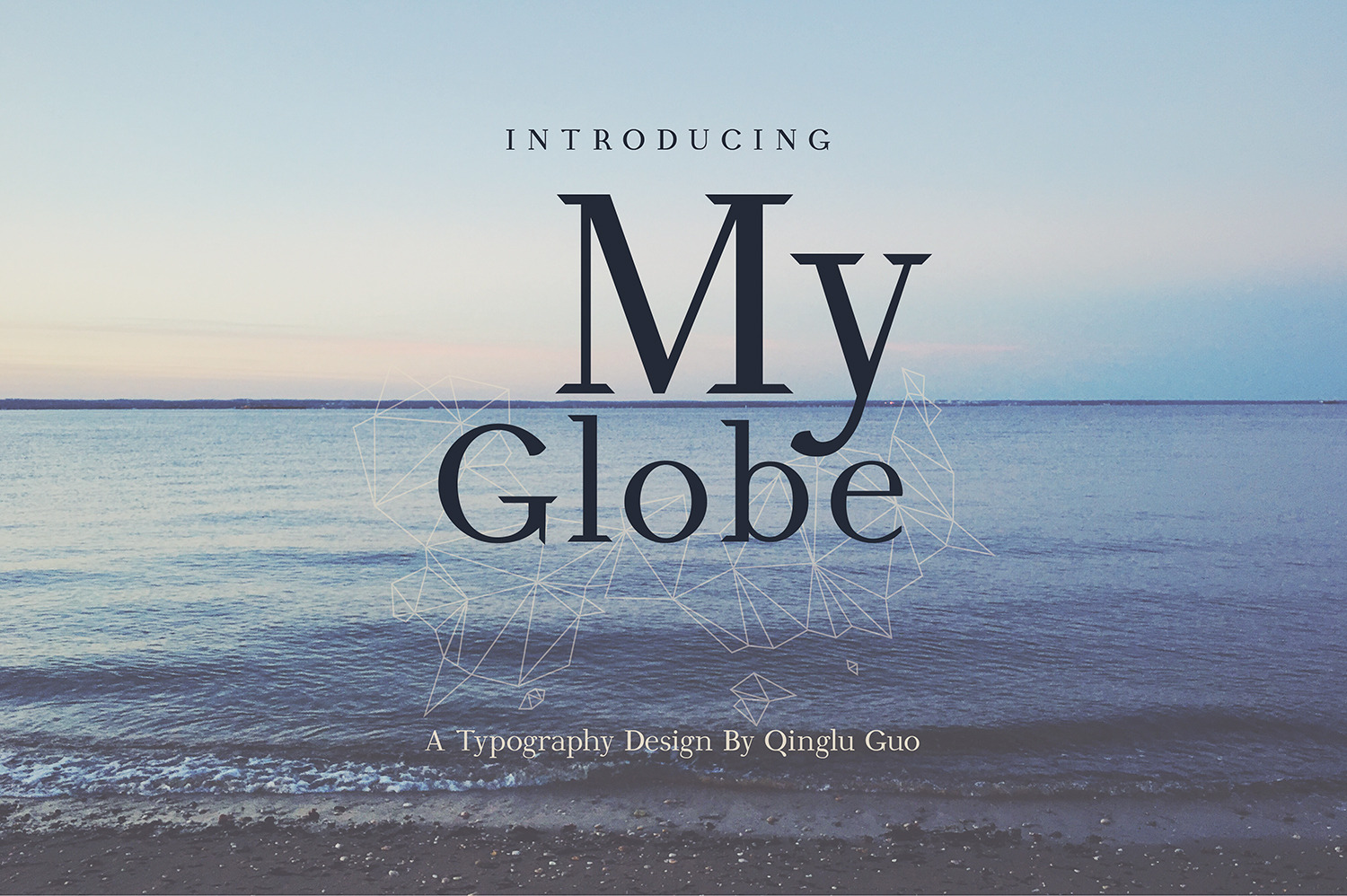
My Globe Font
“My Globe” is a custom typeface. It is modeled after the “Didone” or “Modern” genre of typefaces, which are characterized by high contrast and broad strokes. My Globe’s serif design was inspired by the beautiful triangle-like serifs commonly found in Chinese typography. The terminal stroke in My Globe mimics the left and right falling strokes in many Chinese typefaces. My Globe uses an unbracketed foot serif, which makes it appear neat and tidy.